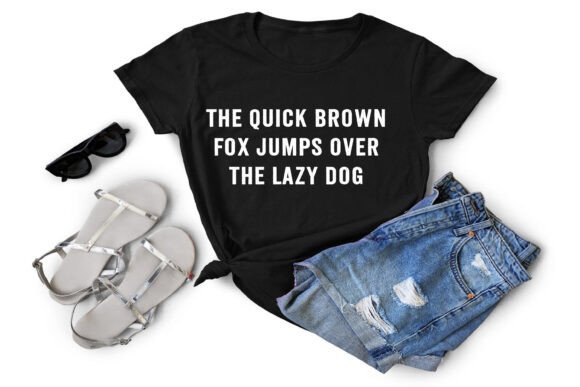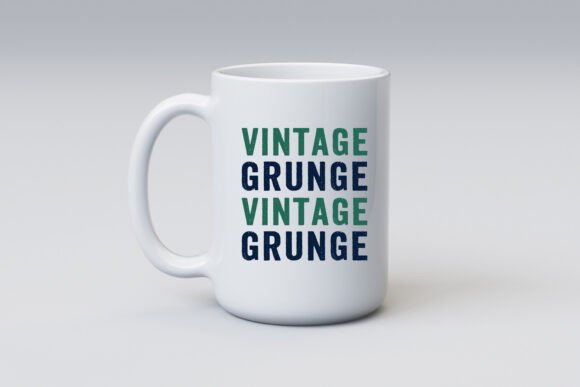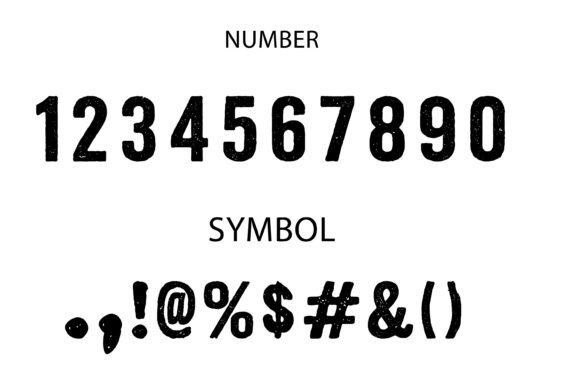
Vintage Grunge Font
Introducing a vibrant splash to your creative projects, our color font embodies joy and whimsy that is bound to elevate your design endeavors. An absolute fit for branding initiatives, packaging designs, riveting logotypes, and gripping headlines, it also adds a sprinkle of charm to wedding invitations and similar creatives. Embrace and experience the transformative power of this uplifting font in your designs.